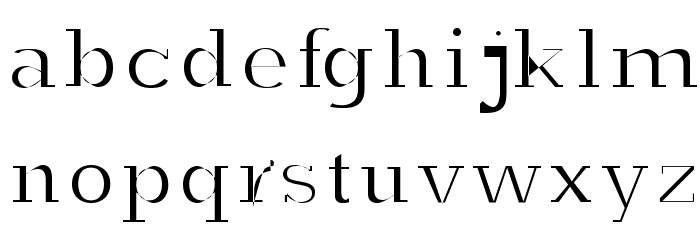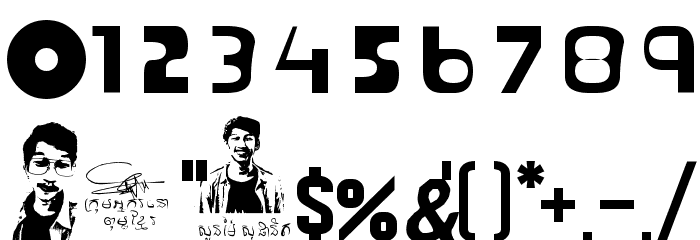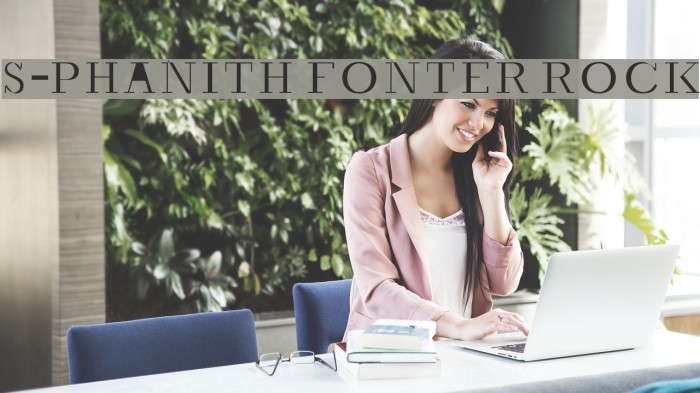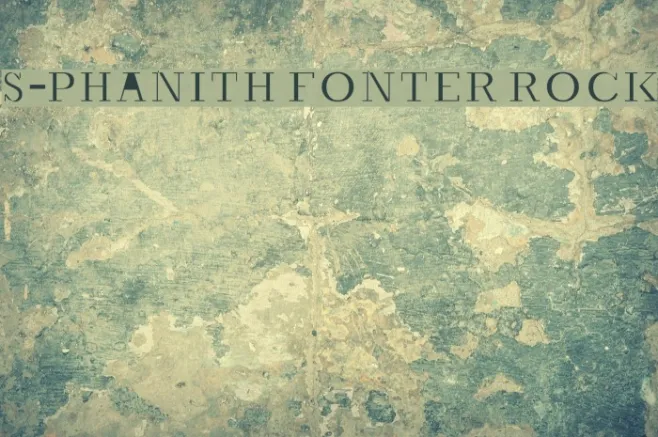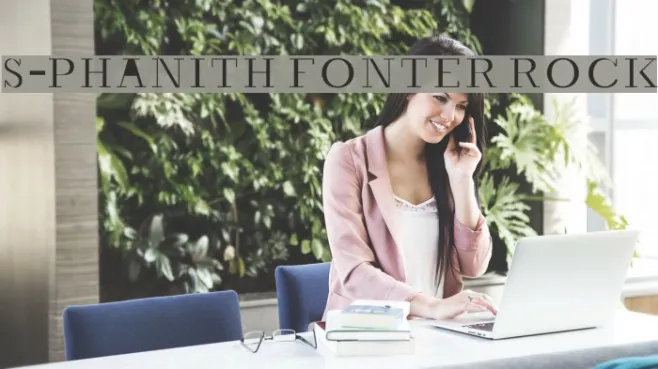
S-PHANITH FONTER ROCK Font
This font exhibits a classic serif style with a modern twist, characterized by its elegant and refined letterforms. The uppercase letters are tall and stately, with a slight contrast in stroke thickness that adds a touch of sophistication. The lowercase letters maintain a consistent style, offering a harmonious blend of curves and straight lines. The numerals are bold and distinct, providing excellent readability. Special characters are well-integrated, ensuring versatility in various design contexts. Overall, the font balances traditional serif elements with contemporary design, making it suitable for a wide range of applications.
A classic serif font with modern elegance and refined letterforms.
- Proposed Projects: Ideal for editorial design, book covers, branding, and elegant invitations.
- Category: Serif
- Overall Style: Classic